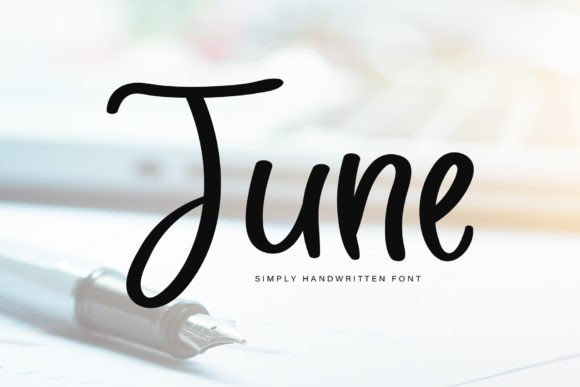
Embark on a typographic journey with June Font, a captivating script font family meticulously crafted for business endeavors. Experience the allure of handwritten elegance fused with a dash of playful charm, a symphony of strokes that dance across your designs with undeniable grace.
Designed with precision by the talented pinkmeca, June Font exudes an aura of warmth and approachability, making it an ideal choice for a range of business applications. Its delicate curves and flowing lines bring a touch of sophistication to your projects, adding a personal touch that resonates with customers and leaves a lasting impression.
Indulge in the versatility of June Font, effortlessly adaptable to a myriad of design aesthetics. Whether you're crafting wedding invitations that evoke romance and joy, creating greeting cards that spread warmth and cheer, or designing marketing materials that demand attention, June Font rises to the occasion, imbuing your designs with a unique personality that sets them apart.
Dive into the world of June Font and unlock a treasure trove of creative possibilities. Its playful nature lends itself beautifully to logos and branding, capturing the essence of your business with a touch of whimsy and charm. Unleash your imagination and let June Font guide you towards design masterpieces that captivate and inspire.
With June Font as your creative companion, you'll discover a font that's more than just a collection of characters—it's an expression of your brand's personality, a reflection of your commitment to excellence, and a gateway to connecting with your audience on a deeper level. Embrace the power of typography and witness the transformative impact of June Font on your business endeavors.